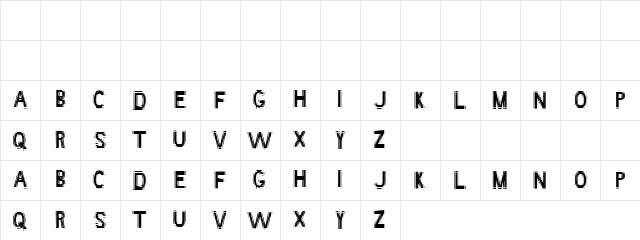
Fatasy Fiz Regular
Design Context for Fatasy Fiz Typeface
Fatasy Fiz is a composed and adaptable typeface that performs quietly and consistently across a wide range of design contexts.
Pro Tip: Use Fatasy Fiz in both headline and body roles to test its range before committing to a single application.